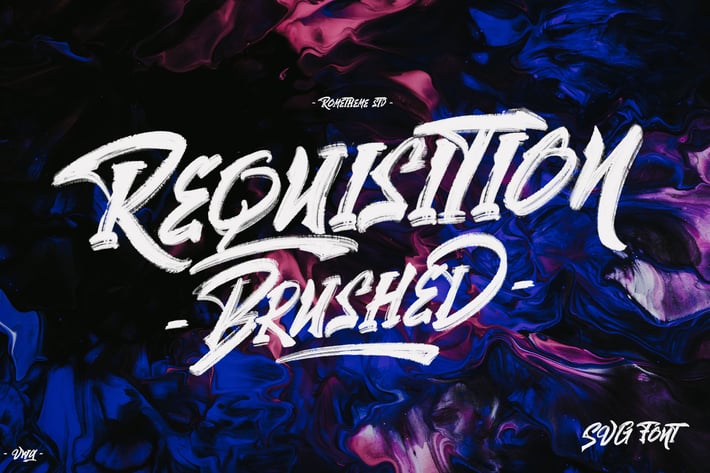
Requisition - SVG Brush Font
Requisition is entirely handmade brush font. A rough with brushy imperfections and an earthy realism. This Font is the best choice for your professional design projects, including : logo, poster design, t-shirt, headline, flyer, cd cover album, quotes, business card, branding, magazines, social media, advertisements, product designs, or something that need horror or scary looks.
- Basic Latin A-Z and a-z
- Numbers
- Symbols
- Multilingual language